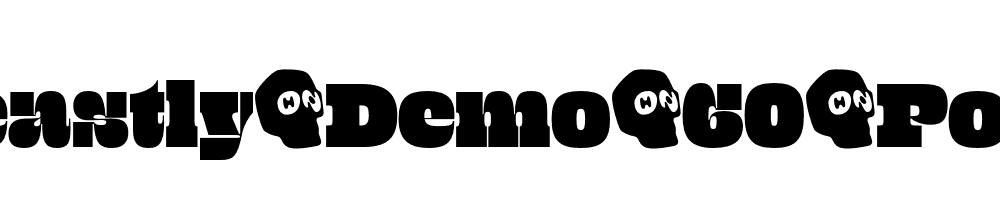
About Beastly-Demo-60-Point
The Beastly Demo 60-Point font is a bold and expressive typeface that commands attention with its strong presence and unique characteristics. The font features intricate details like sharp apexes and curved arcs that add a touch of elegance to its overall structure. The bilateral serifs and sturdy stems give the font a serious and rugged feel, while the smooth counters and subtle bracketing add a friendly and inviting touch to its design. The font’s descenders and ascenders are well-balanced, creating a harmonious flow from line to line. The font’s spine and shoulders are robust and well-defined, adding to its classic and progressive appeal. The terminals and serifs have a hint of playfulness, contrasting with the font’s overall serious demeanor. In terms of mood, the font strikes a balance between being loud and discreet, making it suitable for a variety of design projects. Its warm undertones make it an inviting choice for any creative endeavor, while its technical and organic elements lend it a versatile and dynamic quality that sets it apart from traditional typefaces. With a rich history and modern twist, the Beastly Demo 60-Point font is sure to make a bold statement in any design setting.